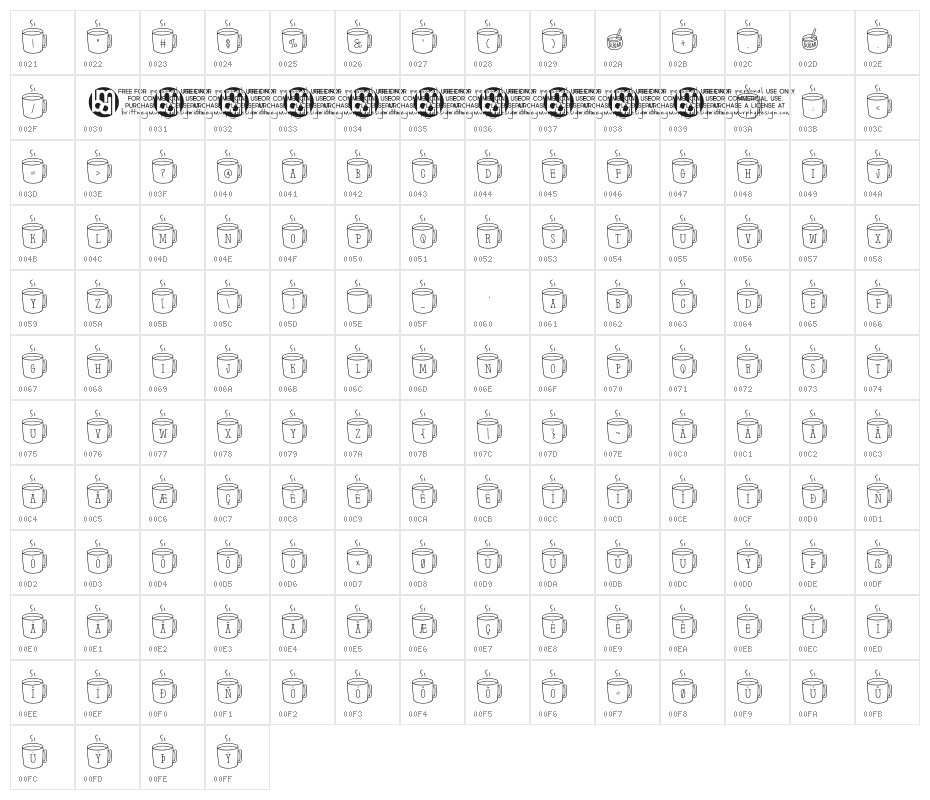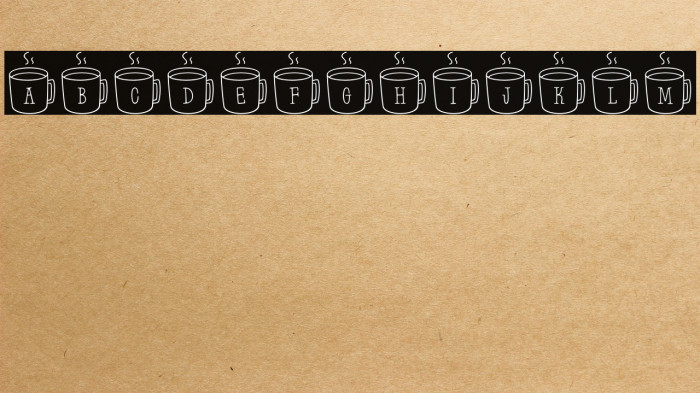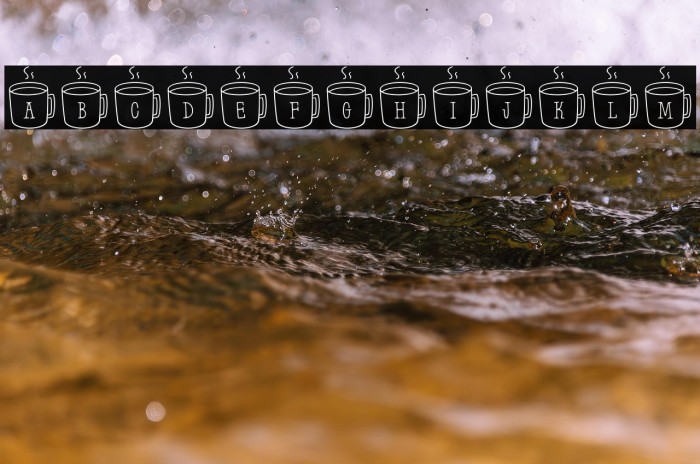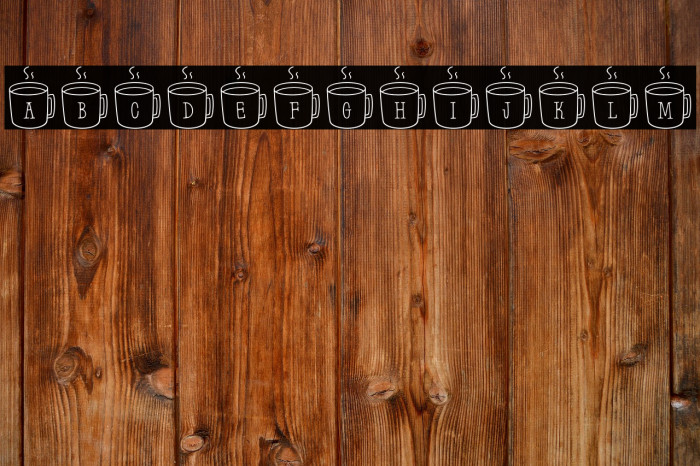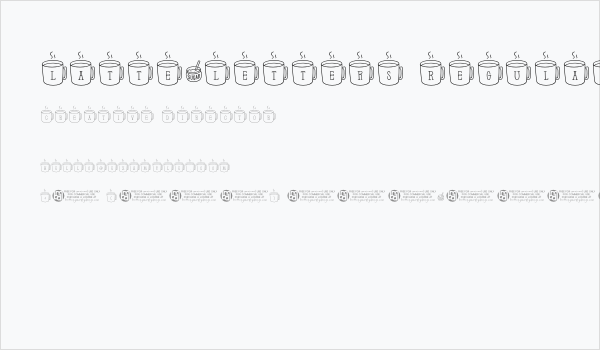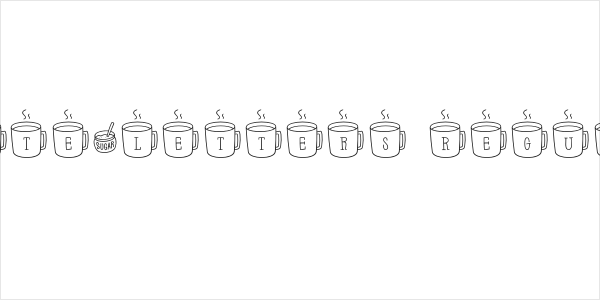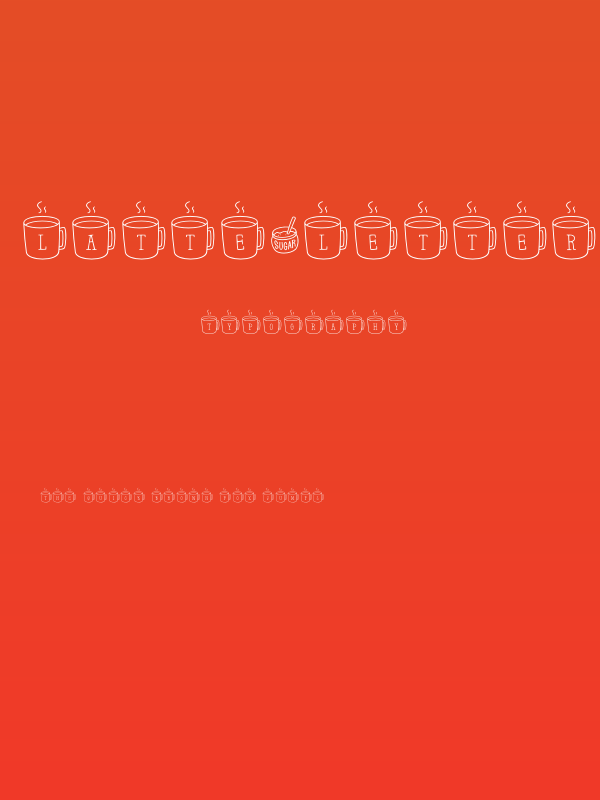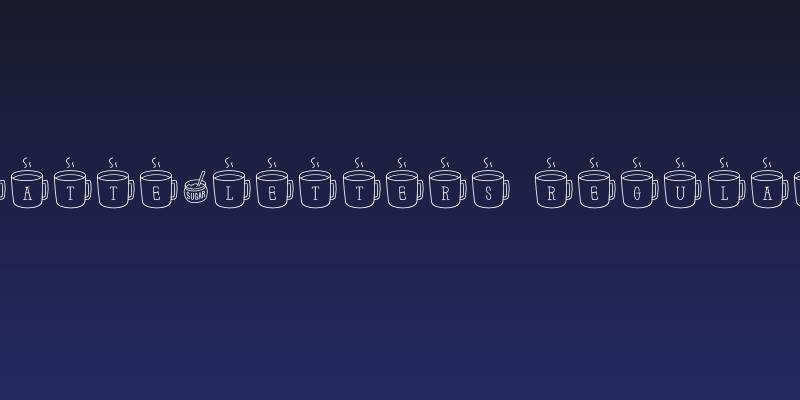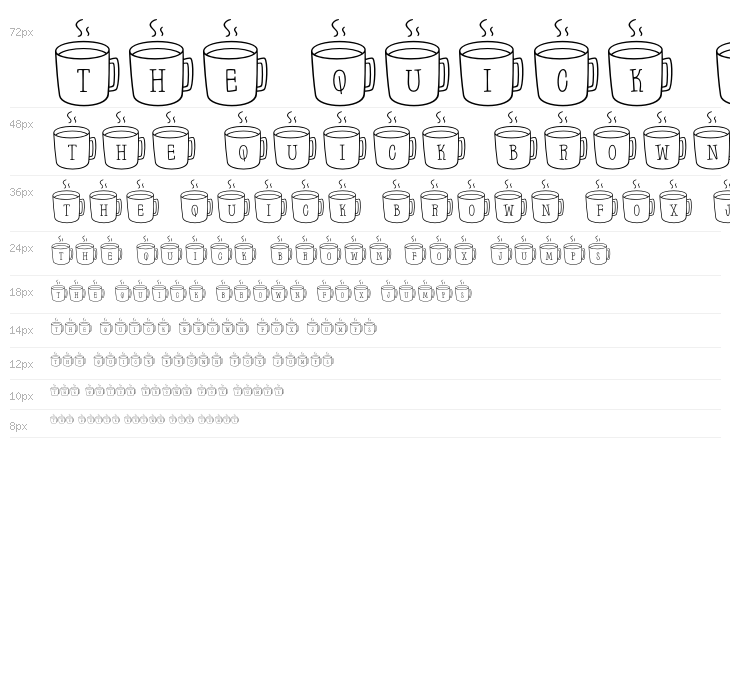
Latte*Letters Regular Font
Latte*Letters Regular Description
This playful and whimsical font features each character enclosed within a steaming coffee mug, adding a unique and cozy touch to the design. The letters are bold and clear, making them easily readable while maintaining a fun and decorative style. The font includes both uppercase and lowercase letters, numbers, and a selection of special characters, all consistently designed within the mug motif. The steam rising from each mug adds an extra element of charm, making this font perfect for projects that aim to convey warmth and creativity.
| Proposed Projects | Ideal for coffee shop branding, cafe menus, cozy-themed invitations, and playful graphic designs. |